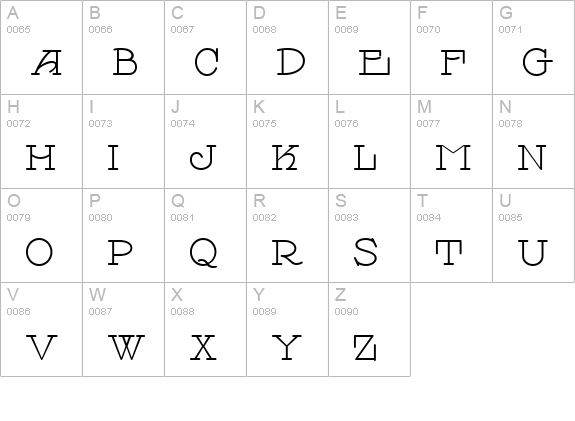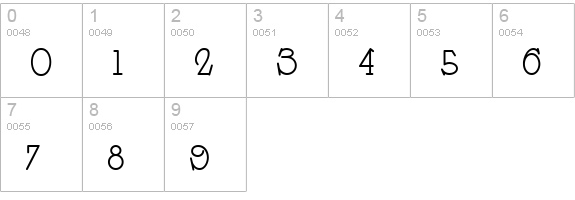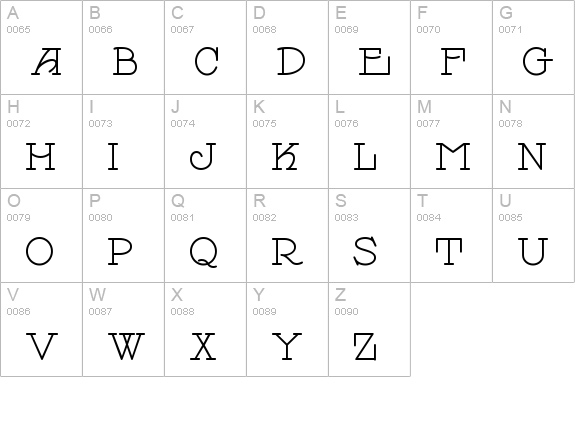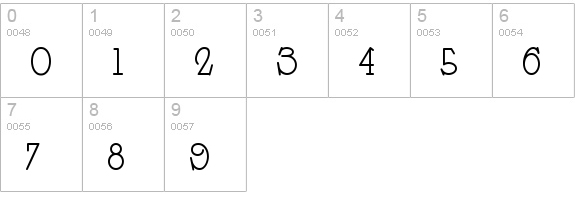
Payzant Pen NF is a charming and versatile handwritten font that exudes a sense of elegance and creativity. With its smooth strokes and classic appeal, this font is perfect for a wide range of design projects, from invitations to branding to social media graphics. What sets Payzant Pen NF apart is that it is available for free download at FontsMarket.com. This means you can easily access this beautiful font to elevate your projects without any cost. Whether you're a designer, artist, or simply someone looking to add a touch of sophistication to your work, Payzant Pen NF is a fantastic choice that won't break the bank. Download it today and enjoy the endless creative possibilities this font has to offer.